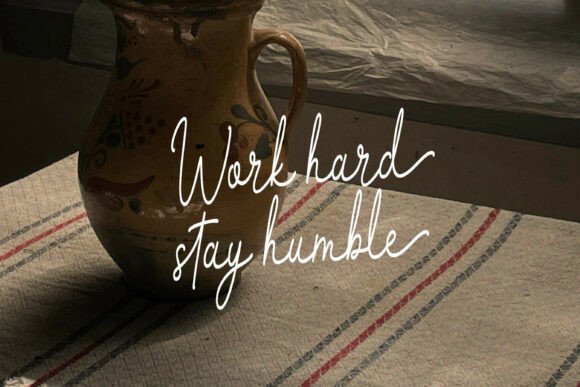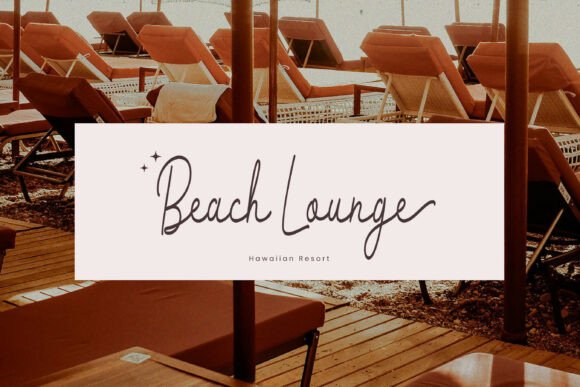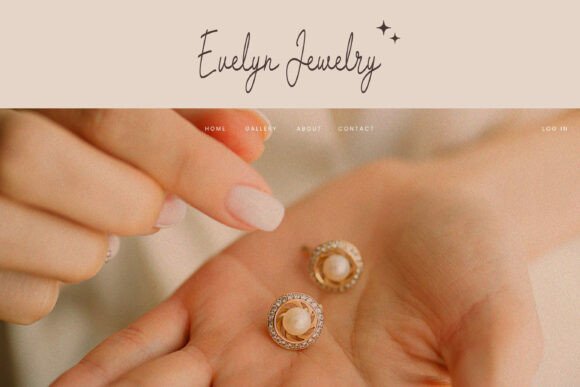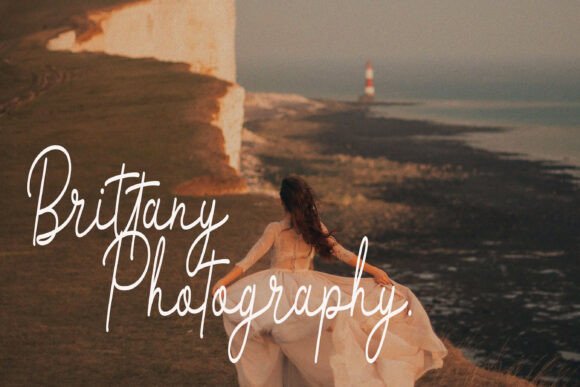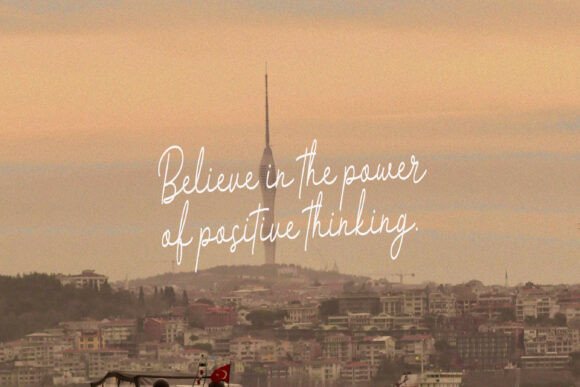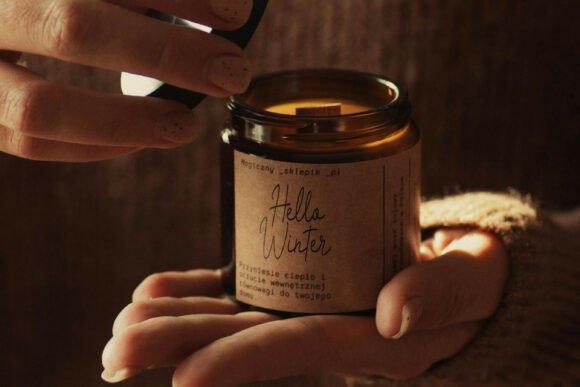
Introduction to Mestana Font
As a designer, there’s nothing quite like the thrill of bringing a creative project to life. You’ve spent hours pouring over sketches, experimenting with colors, and perfecting the details – and then, it all comes together in a beautiful, cohesive piece that makes your heart skip a beat. For many designers, that moment is made all the sweeter with the help of a stunning font like Mestana Font.
This beautifully handwritten font has a soft, romantic soul that perfectly captures the essence of modern calligraphy. With its smooth curves and natural flow, Mestana Font is the perfect design resource for adding warmth and elegance to any project, from wedding invitations to branding and packaging.
Whether you’re looking for a high-quality font to elevate your design or a free download to add a personal touch to your next creative project, Mestana Font is a valuable asset that’s sure to deliver. With its transparent background and beautiful, flowing lines, it’s the perfect way to add a touch of sophistication to your work.
Key Features of Mestana Font
- Unique and creative design, perfect for adding a touch of personality to your design project.
Honest Review: Mestana Font
As a designer, I’m always on the lookout for high-quality design resources that can elevate my creative projects. The Mestana Font caught my eye with its elegant and sophisticated look, making it perfect for a wide range of applications.
Here’s what works well about the Mestana Font: ✨ It’s incredibly versatile, suitable for both modern and classic designs. The font is also highly customizable, allowing me to adjust the size, color, and spacing to suit my specific needs. Additionally, the transparent background option makes it easy to integrate with other design elements.
- Suitable for both modern and classic designs
However, there are a few limitations to keep in mind: ⚠️ The font may not be suitable for very small text sizes, and it can be a bit heavy-handed in certain contexts. Additionally, while the free download option is a great bonus, it’s not always clear what the licensing terms are.
Overall, I’m impressed with the Mestana Font’s quality and flexibility. It’s a solid addition to any designer’s toolkit, and I’d definitely recommend it for creative projects that require a touch of sophistication.
Getting the Most Out of Mestana Font
Here are some tips for getting the most out of Mestana Font: Use it in combination with other design resources for a cohesive look, experiment with different font sizes and styles, and use the transparent background feature to create visually appealing graphics.
The Mestana Font is commonly used in various design projects, including logo design, graphic design, and digital marketing materials. Its high-quality design and transparent background make it a great resource for designers and creatives.